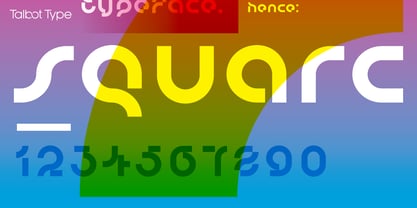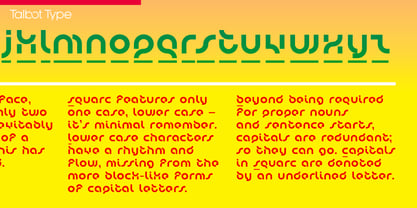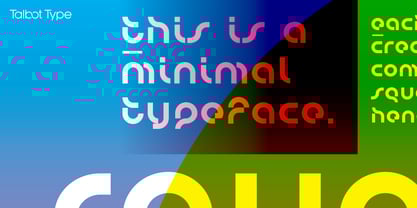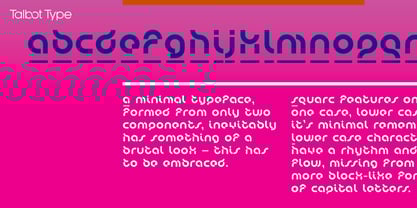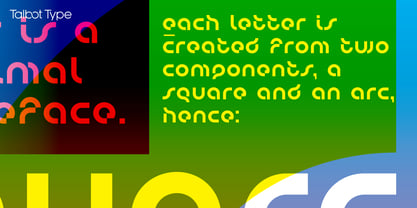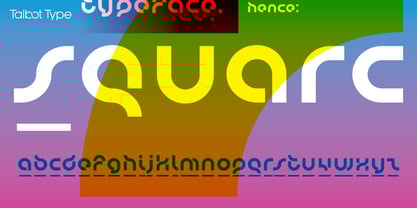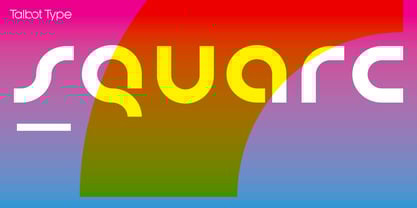
Squarc
Squarc is a minimal, modular font. This one really is minimal, all characters are comprised of combinations of just a pair of components – a square and an arc, hence: Squarc. A minimal typeface such as this, inevitably has something of a brutal look – this has to be embraced. The result has a rugged beauty. Squarc features only lower case – it’s minimal remember. Lower case characters have a rhythm and flow, missing from the more block-like forms of capital letters. And besides, beyond being required for proper nouns and sentence starts, capitals are redundant; so they can go. Capitals in Squarc are denoted by an underlined letter. Squarc is a clean, geometric, graphic, mathematical, modular, matrix-based typeface.
Most of my fonts are influenced by the classic movements of the twentieth century — Modernism, the Bauhaus, Constructivism and Art Deco — I aspire to create timeless designs, valid now and in the future. These are not showy faces, but practical, hard-working text and display fonts. Occasionally I branch out into more experimental, display fonts, possibly as a result of my years as a graphic designer with a focus on identities and communications and the need to stand out from the crowd — in a good way.